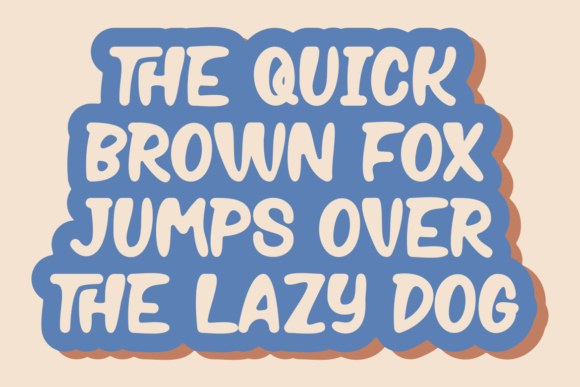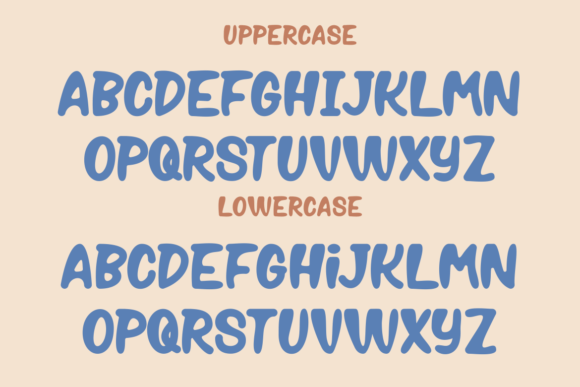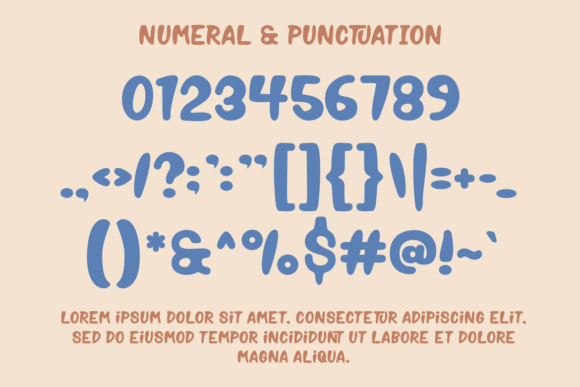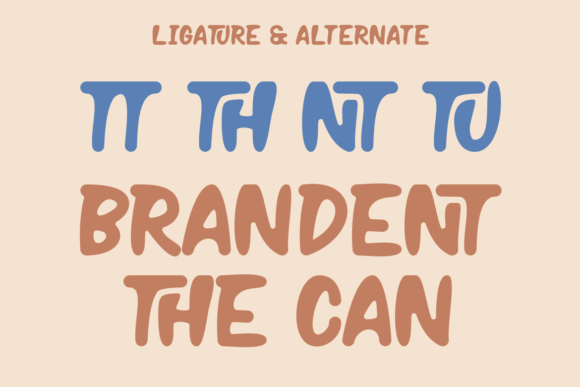
The Darent Font: A Modern Display Font for Creative Projects
I’ll never forget the time I was working on a project for a client’s baby shower invitation. I had the design concept all sorted out, but I was struggling to find the perfect font to match the playful and modern vibe I was going for. That’s when I stumbled upon the Darent font, and it instantly became the star of the show! 💫
Darent is a modern display font that’s suitable for a wide range of creative projects, including greeting cards, invitations, posters, baby clothing, book covers, quotes, logos, presentations, headlines, and so much more. In this article, I’ll share my honest review of the Darent font, provide a practical guide on how to use it, and explore similar fonts and alternatives.
- ✅ **Unique and modern design**: Darent has a fresh and contemporary look that’s perfect for designers and crafters who want to add a touch of sophistication to their projects.
- ✅ **Highly versatile**: This font can be used for a wide range of projects, from digital designs to print materials.
- ✅ **Easy to read**: Despite being a display font, Darent is surprisingly easy to read, even at smaller sizes.
- ✅ **OpenType features**: Darent comes with a range of OpenType features, including glyphs and stylistic alternates, which can add an extra layer of creativity to your designs.
Small Quirks and Limitations 🤔
- ⚠️ **Limited use for body text**: While Darent is easy to read, it’s not the best choice for body text due to its display font nature.
- ⚠️ **Some characters may not work well in all contexts**: As with any font, some characters may not work well in all contexts, so it’s essential to test the font thoroughly before finalizing your design.
If you like the Darent font, you may also want to consider the following similar fonts and alternatives:
- Montreal: A modern sans-serif font with a similar clean and sophisticated look. Use Montreal for projects that require a more minimalist approach.
- Avenir: A geometric sans-serif font with a futuristic feel. Use Avenir for projects that require a bold and edgy look.
- Playfair Display: A luxurious serif font with an elegant and refined look. Use Playfair Display for projects that require a touch of sophistication and glamour.
- Raleway: A elegant sans-serif font with a refined and modern look. Use Raleway for projects that require a versatile and professional font.
The Story Behind Darent: Designer Inspiration
The Darent font was designed with the modern creative in mind. Its unique and modern design makes it perfect for designers and crafters who want to add a touch of sophistication to their projects. The font’s creator aimed to create a font that’s both versatile and stylish, making it suitable for a wide range of creative projects.
Q: What type of projects is Darent suitable for?
A: Darent is suitable for a wide range of creative projects, including greeting cards, invitations, posters, baby clothing, book covers, quotes, logos, presentations, headlines, and more.